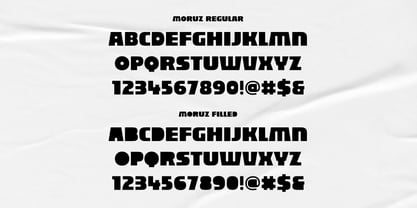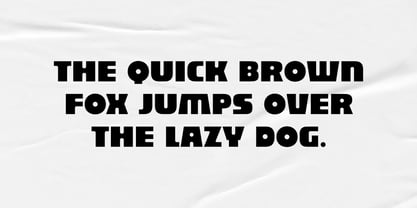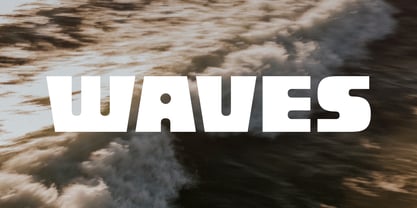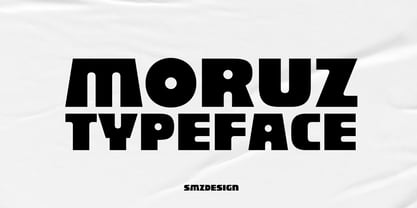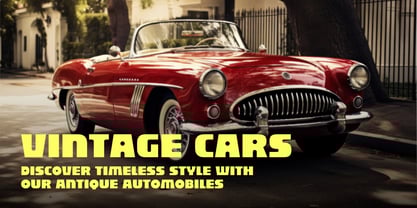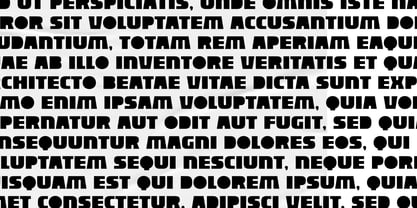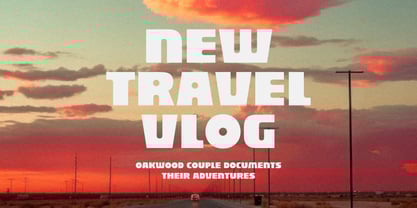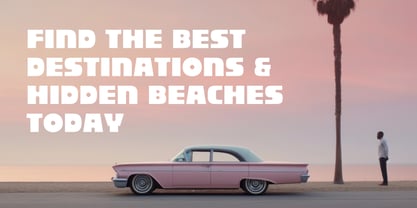
Moruz
by ESEM Type
The Moruz Font Family was designed by Szymon Mandziarz and published by ESEM Type. Moruz contains 2 styles and family package options. More about this family
MORUZ is a bold and expressive display typeface with a strong geometric structure. Inspired by retro aesthetics and modular shapes, it’s perfect for projects that demand attention – from posters and album covers to logos and advertising banners. The typeface comes in two styles: Regular and Filled, giving you creative flexibility.
2 styles: Regular & Filled
- Uppercase A–Z
- Numbers and special characters
- Perfect for headlines, posters, logos, and branding
- Retro-futuristic design with a powerful presence
Designers: Szymon Mandziarz
Foundry: ESEM Type
An independent font foundry that was created out of passion for typography and creative needs. The founder and author is Szymon Mandziarz. The beginnings of letter design began many years ago with graffiti. The foundry focuses on the production of modern, unique typefaces with a clear form and details that attract attention. The font foundry aims at providing its customers with high quality fonts that stand out with their original style.